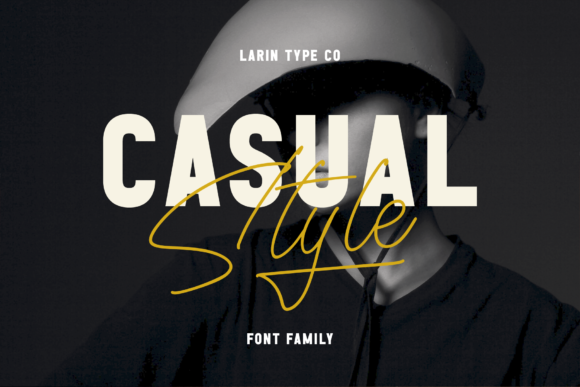
The Ultimate Casual Style Font Guide: Elevate Your Designs with This Lovely Duo
I’ll never forget the time I was working on a project for a client who wanted a font that was both playful and elegant. I spent hours scouring the internet for the perfect match, but nothing seemed quite right. That was until I stumbled upon the Casual Style font, a beautiful duo font that instantly captured the essence of what I was looking for. In this article, I’ll share my love for this font, its features, and how you can use it to take your designs to the next level.
A Personal Review: What I Love About Casual Style
So, what makes Casual Style so special? Here are a few things that I absolutely love:
• ✨ Versatility: This font is incredibly versatile, making it perfect for a wide range of design projects, from branding and advertising to crafting and DIY tutorials.
• ✅ Easy to use: Casual Style is PUA encoded, which means you can access all of the glyphs and swashes with ease, even if you’re not a design expert.
• 💕 Aesthetic appeal: The font has a lovely, hand-crafted feel that’s both elegant and playful, making it perfect for designs that need a personal touch.
While Casual Style is an amazing font, there are a few small quirks to be aware of:
• 🤔 Glyph compatibility: While the font is PUA encoded, some glyphs may not work seamlessly with all design platforms or software.
• ⚠️ Overuse: As with any font, using Casual Style excessively can make your design look cluttered and unprofessional.
While the true story behind Casual Style remains a mystery, it’s easy to imagine that the designer was inspired by the world of hand-lettering and typography. Perhaps they spent countless hours pouring over vintage signs, posters, and advertisements, searching for the perfect blend of elegance and playfulness. Whatever the inspiration, the end result is a font that’s both versatile and beautiful.